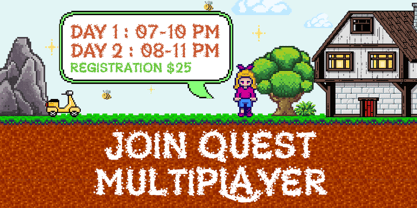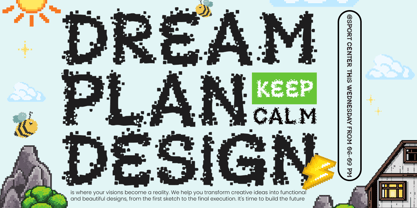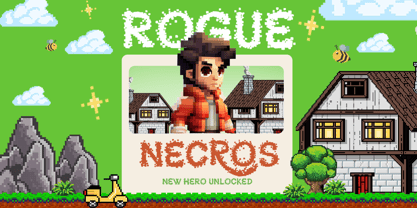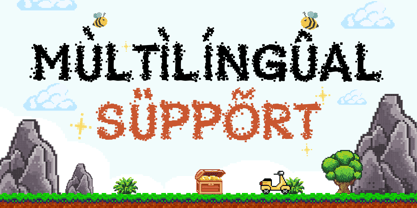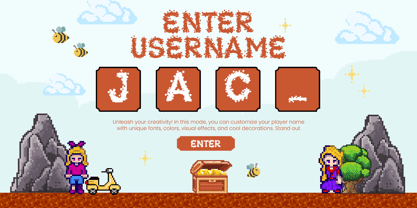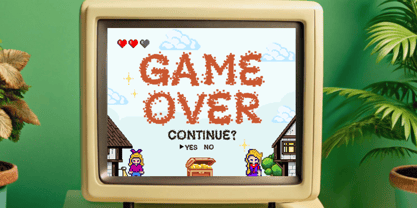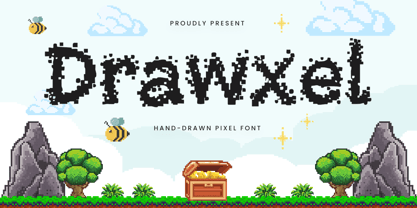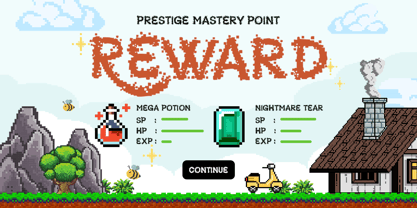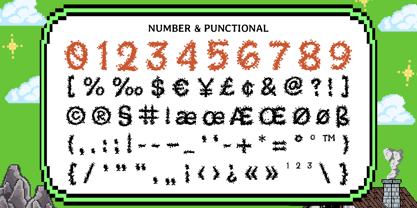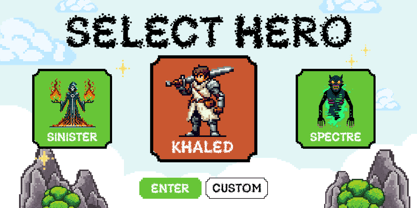
Drawxel
DRAWXEL is a hand-drawn pixel font that blends retro pixel-art style with the charm of imperfect, sketched lines. Designed for creative digital projects, this font captures the nostalgic energy of classic games while adding a fun, handmade twist.
Each character is drawn with rough pixel strokes, giving DRAWXEL a unique texture that stands out in gaming titles, children’s designs, playful branding, and quirky social media graphics. It’s perfect for designers looking to combine vintage 8-bit aesthetics with a warm, hand-crafted feel.
Whether you’re creating retro posters, UI elements, pixel-art animations, or fun merchandise, DRAWXEL brings personality, nostalgia, and creativity to every layout — both digital and print.
DRAWXEL – Hand-drawn Pixel Font Features
• Unique combination of pixel-art and hand-drawn texture
• Perfect for gaming titles, retro posters, and quirky branding
• Playful, imperfect letterforms for creative expression
• Great for kids' projects, social graphics, and digital interfaces
• Uppercase, lowercase, numerals, and punctuation included
• OpenType features for enhanced design flexibility
Bring playful retro energy to your designs with DRAWXEL – the ultimate hand-drawn pixel font for creative digital projects. 🕹️✨